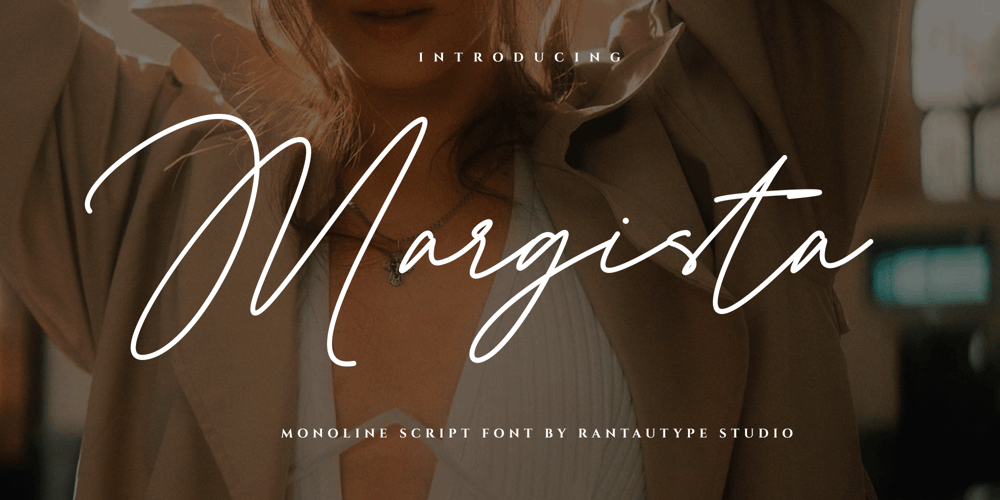
Margista Font Family was designed by Yudi Pratama Chandra and published by RantauType. Margista contains 1 styles and family package options. Margista is modern monoline handwritten font with natural style. Margista bring sophisticated of beautiful tail in beginning and end lower to make a various of design.Margista is a perfectly choice for any creative endeavor, chic, lifestyle design such as logos, advertisements, watermark on photography, stationery, branding project, display and magazine, invitation, corporate brand, product design, label, business project and other project with handwritten taste.What you have: Standart Gylphs Numberial and Functional Ligature and alternate Works on PC & Mac Simple installations Accessible in Adobe Illustrator, Adobe Photoshop, Adobe InDesign, even work on Microsoft Word. Fonts include multilingual support for: Afrikaans, Albanian, Asu, Basque, Bemba, Bena, Breton, Chiga, Cornish, Dutch, English, Estonian, Filipino, Finnish, Friulian, Galician, Gusii, Indonesian, Irish, Italian, Kabuverdianu, Kalenjin, Kinyarwanda, Luo, Luxembourgish, Luyia, Machame, Makhuwa-Meetto, Makonde, Malagasy, Manx, Morisyen, North, Ndebele, Nyankole, Oromo, Portuguese, Quechua, Romansh, Rombo, Rundi, Rwa, Samburu, Sango, Sangu, Scottish, Gaelic, Sena, Shambala, Shona, Soga, Somali, Spanish, Swahili, Swedish, Swiss, German.Thank you for your purchase!Hope you enjoy with our font!